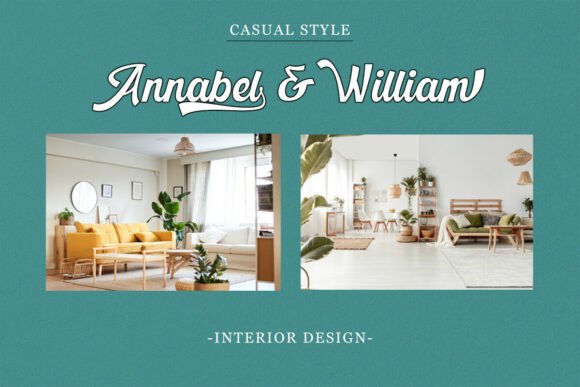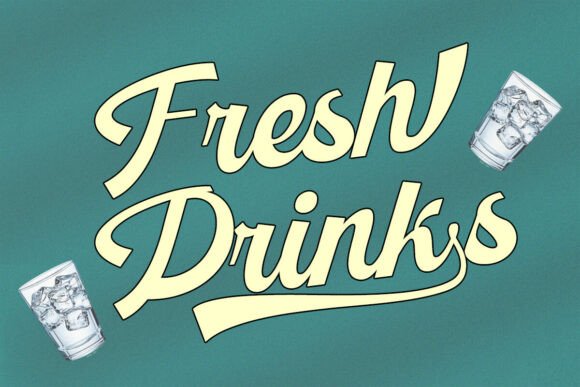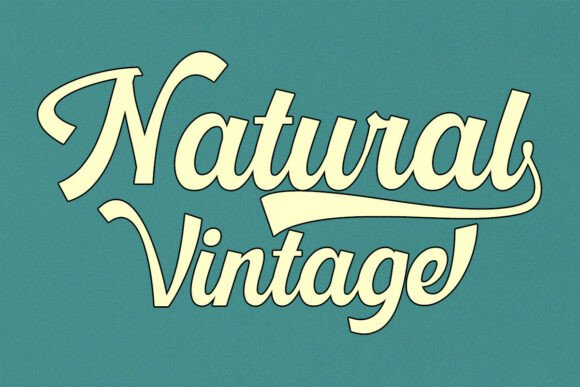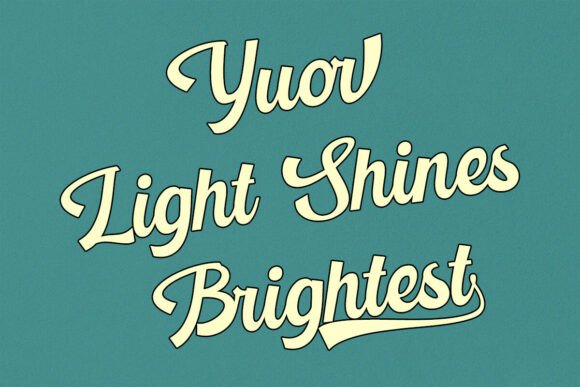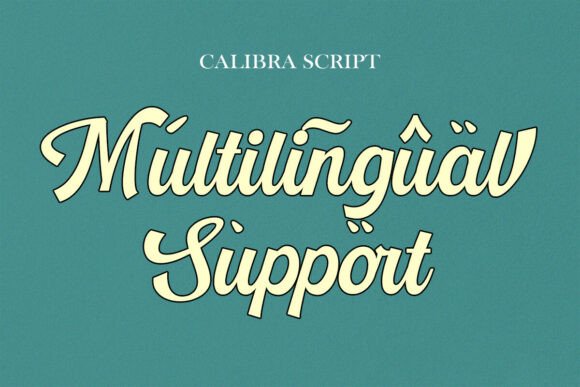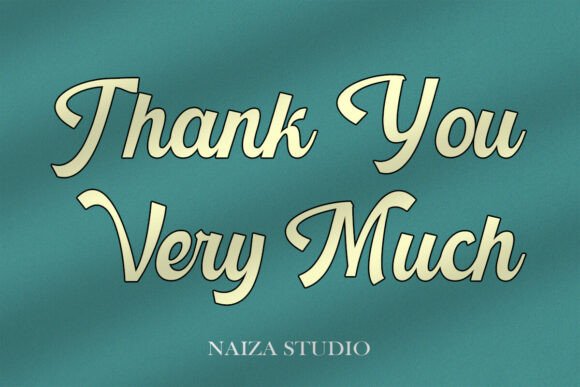
Unleash Your Creativity with the Perfect Handwritten Touch
Have you ever sat down with a blank piece of paper, a pen in hand, and felt the excitement of bringing a new idea to life? That’s what happens when you work with the right tools – and for designers, the right tool can be a game-changer. For those looking to add a touch of elegance and uniqueness to their designs, look no further than the Calibra Script Font.
This delicate handwritten font is carefully crafted to bring a cool and sophisticated vibe to any project. Whether you’re writing a heartfelt letter, designing an invitation, or labeling a food product, Calibra Script Font is the perfect choice. Its versatility and charm make it a valuable addition to any designer’s toolkit, and its natural beauty is sure to captivate audiences.
Calibra Script Font Key Features
- Font Family: Calibra Script Font is a beautiful, elegant script font that is perfect for creative projects, wedding invitations, and other special occasions.
- Unique Characteristics: Features a unique, flowing script style with elegant connections between letters, giving it a sophisticated and romantic feel.
Calibra Script Font Review
Overall, I think Calibra Script Font is a beautiful, elegant script font that can add a touch of sophistication to any design project. Here are some things that really stand out:
- ✨ Beautiful connections between letters: The font has a flowing, connected feel that makes it perfect for titles and headings.
- ✨ Versatility: Calibra Script Font works well in a variety of styles, from modern and minimalist to traditional and vintage.
- ✨ Friendly readability: Despite its elegant appearance, the font is still easy to read, even in smaller sizes.
- ⚠️ Limited character set: Calibra Script Font has a limited character set, which can make it difficult to use for longer blocks of text.
- ⚠️ Not ideal for small text: While the font is generally readable, it can become a bit too ornate for small text sizes, making it difficult to read.
Overall, I think Calibra Script Font is a great choice for designers looking to add a touch of elegance to their projects. While it may have some limitations, its beauty and versatility make it a great option for the right projects.
Calibra Script Font is ideal for:
- Birth announcements and baby shower invitations.
- Quinceañera and other special occasion invitations.
- Branding and logos for creative businesses.
Remember to use Calibra Script Font in moderation to avoid overwhelming your design.